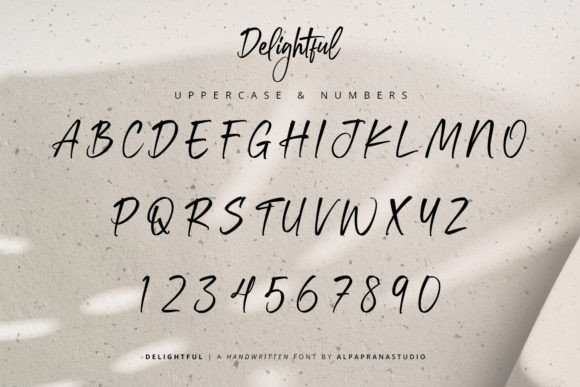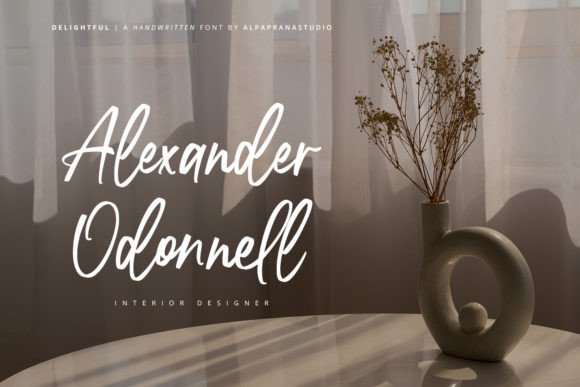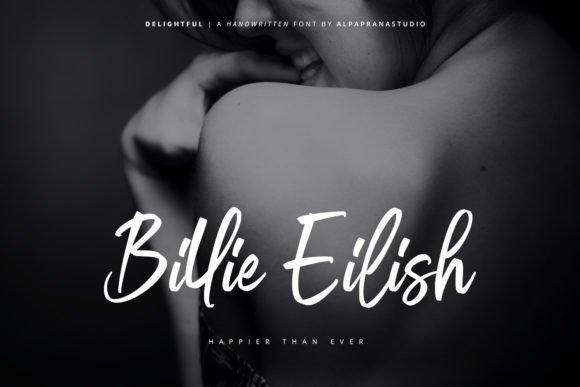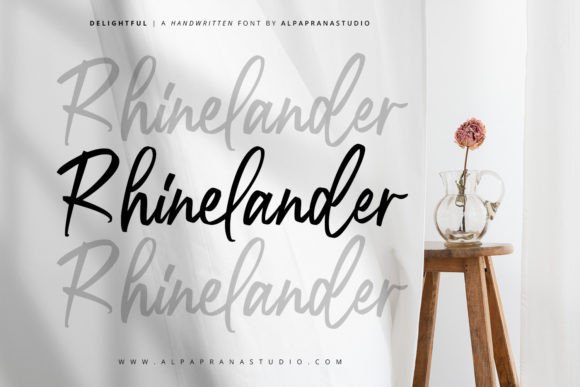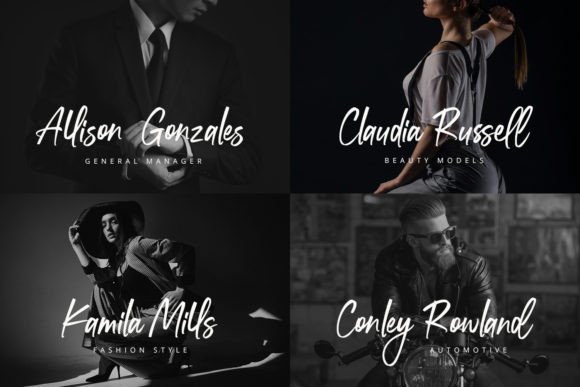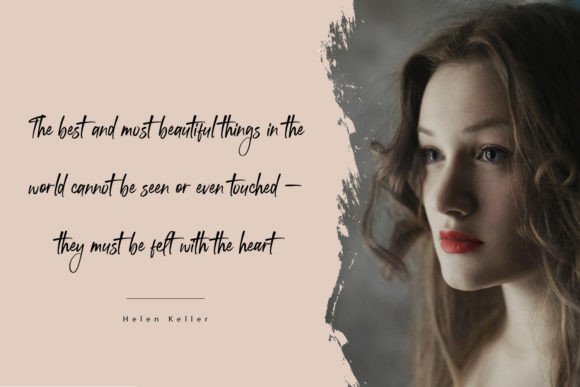
Introducing Delightful Font: Elevate Your Designs with Elegance and Style
Are you a designer or crafter looking for a font that can add a touch of sophistication and whimsy to your projects? Look no further than Delightful Font, a stunning script font that is sure to impress. With its elegant and stylish design, Delightful Font is perfect for a wide range of applications, from wedding invitations and greeting cards to logos and business cards.
What Makes Delightful Font So Special?
Delightful Font is a beautifully crafted script font that boasts a unique and distinctive style. Its elegant lines, flowing curves, and intricate details make it a true standout in the world of typography. Whether you’re looking to create a romantic and whimsical design or a sophisticated and professional one, Delightful Font is the perfect choice.
Wedding invitations, thank you cards, and other event-related designs are a perfect match for Delightful Font. The font’s elegant and sophisticated design makes it ideal for formal events, while its whimsical and playful touch adds a romantic flair. With Delightful Font, you can create stunning wedding invitations, save-the-date cards, and other event materials that will leave a lasting impression on your guests.
Ideal for Crafters and DIY Enthusiasts
Delightful Font is not just limited to professional designers. Crafters and DIY enthusiasts will also love this font for their various projects. Whether you’re creating handmade cards, scrapbooking pages, or other paper crafts, Delightful Font is a great choice. Its elegant design and whimsical touch make it perfect for adding a personal and handmade touch to your creations.
Key Features of Delightful Font
- Elegant and stylish design: Delightful Font boasts a unique and sophisticated design that is sure to impress.
- Whimsical and playful touch: The font’s flowing curves and intricate details add a whimsical and playful touch to your designs.
- Perfect for formal and informal designs: Delightful Font is suitable for both formal and informal designs, making it a versatile choice for a wide range of projects.
- Easy to read and use: Despite its elegant design, Delightful Font is easy to read and use, making it perfect for body text and headlines.
How to Use Delightful Font in Your Designs
- Pair it with a simple font: Delightful Font is a statement font, so it’s best to pair it with a simple font for body text.
- Experiment with different colors: Delightful Font looks great in a variety of colors, from soft pastels to rich jewel tones.
- Add embellishments and graphics: To take your designs to the next level, consider adding embellishments and graphics, such as flowers, hearts, or other whimsical elements.
In conclusion, Delightful Font is a stunning script font that is perfect for designers and crafters looking to add a touch of elegance and whimsy to their projects. With its elegant design, whimsical touch, and versatility, Delightful Font is sure to become a favorite in your font collection. So why wait? Download Delightful Font today and start creating stunning designs that will leave a lasting impression.